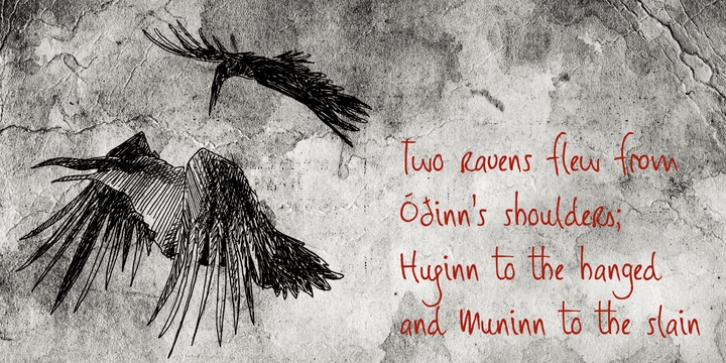
Huginn And Muninn are a pair of ravens that fly all over the world Midgard. They keep the god Odin up to date on the wheelings and dealings of everyone living under the sun. Huginn means ‘thought’ and Muninn means ‘memory’ or ‘mind’ in old Norse.
The font is a handwritten notebook-style typeface, messy yet legible. It is ideal to give your designs a lively, personal touch.